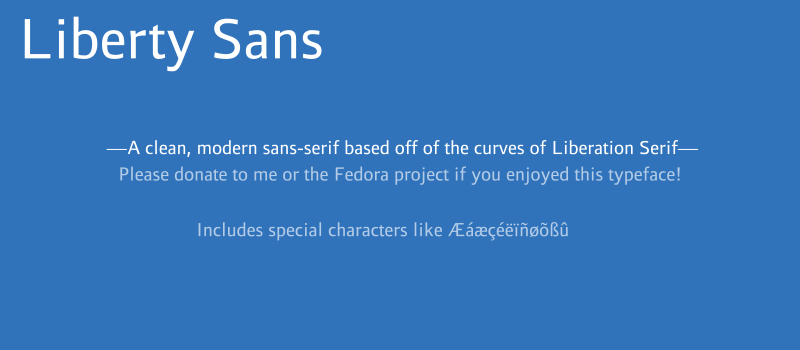
Font name: | Liberty Sans |
Author: | Kelvin Ma |
Note by Kelvin Ma | |
A sans-serif based on the GPL font Liberation Serif. Only one weight is available now, however I may create the others if people express interest. |